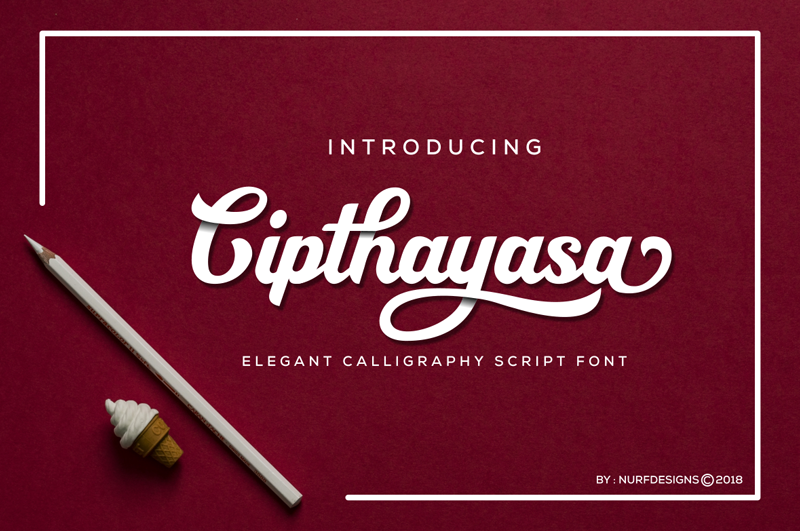
Cipthayasa is an elegant calligraphy script. It can be used for logos, headers, t-shirts, quotes, and every other design which needs a striking, yet friendly typeface. This demo font is for PERSONAL USE ONLY! But any donation is very appreciated. Paypal account for donation : nurfdesigns@gmail.com Link to purchase full version and commercial license: https://www.creativefabrica.com/product/cipthayasa/ref/197666/ or you can directly contact us via email: nurfdesigns@gmail.com THANKS FOR WATCHING |